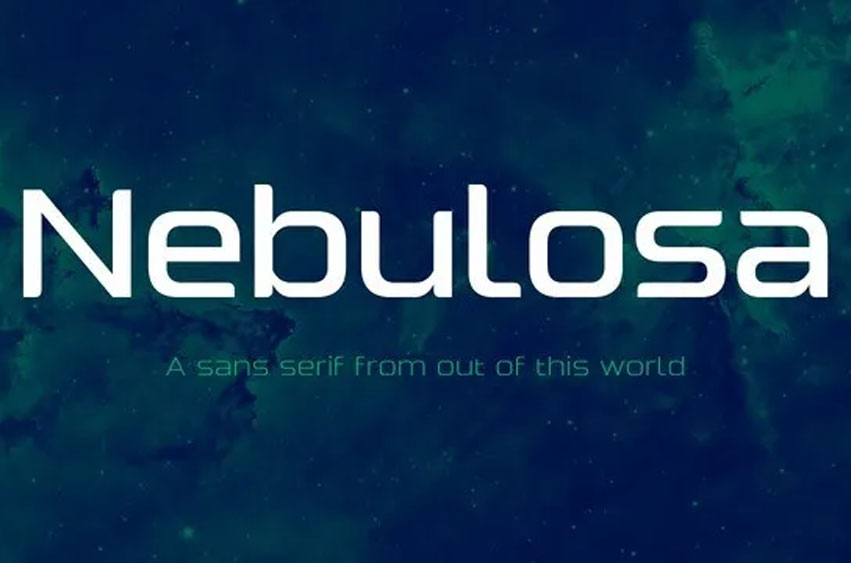
Nebulosa Sans Font
Nebulosa Sans Font is a fusion of the mood and rhythm of art deco with modern, clean letterforms. Nebulosa has a character while at the same time being useful because of its restrained style and modernized construction.
The variation of the letter width makes a nice rhythm. It is great for headlines, logos and large type.